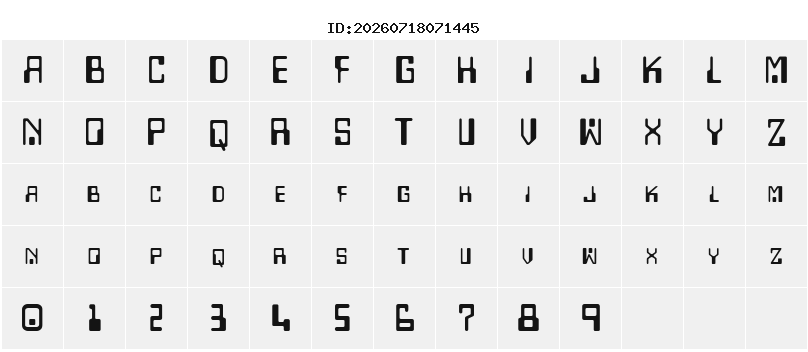
Checkbook Preview
• Font Name: Checkbook
• Font ID: Based on: MICR
• Full Font Name: Checkbook
• Version: 04-18-93
• PostScript Name: Checkbook
• Character Count: 105
About Checkbook.ttf
Checkbook.ttf is a modern, elegant sans-serif font designed for ultimate readability and visual harmony. Perfect for branding, headlines, web design, and print materials.